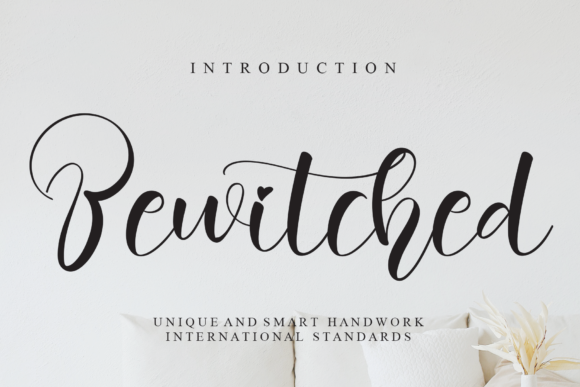
The Magical World of Bewitched Font: A Designer’s Delight
I’ll never forget the time I was working on a branding project for a new coffee shop. My client wanted a font that was both modern and elegant, but I was struggling to find the perfect fit. That’s when I stumbled upon Bewitched Font, a sleek handwritten font that cast a spell on me with its remarkably attractive letters and unusual, modern look. In this article, I’ll share my experience with Bewitched Font, its features, and how to make the most of it in your designs.
An Honest Review of Bewitched Font
What I Love About Bewitched Font ✨
- 💫 **Unique and modern design**: Bewitched Font has a distinct, hand-crafted feel that’s perfect for creating eye-catching logos, product packaging, and marketing materials.
- ✅ **Highly versatile**: This font is suitable for a wide range of projects, from letters and cards to books and digital content.
- 🎨 **Easy to read**: Despite its unique design, Bewitched Font is surprisingly easy to read, making it perfect for body text and headlines.
- ⚠️ **Limited character set**: Bewitched Font may not have an extensive character set, which can limit its use in certain projects.
- 🤔 **Kerning issues**: As with any font, you may need to adjust the kerning to ensure optimal spacing and readability.
The Backstory of Bewitched Font
Bewitched Font was designed by a team of creative typographers who aimed to create a font that was both modern and enchanting. Inspired by the world of magic and fantasy, they crafted a font that’s perfect for designers, crafters, and creative hobbyists who want to add a touch of whimsy to their projects.
Q: What is Bewitched Font best suited for?
Bewitched Font is perfect for logos, product packaging, letters, cards, marketing materials, books, or anything else that requires a modern, elegant look.
Q: Is Bewitched Font easy to read?
Yes, despite its unique design, Bewitched Font is surprisingly easy to read, making it perfect for body text and headlines.